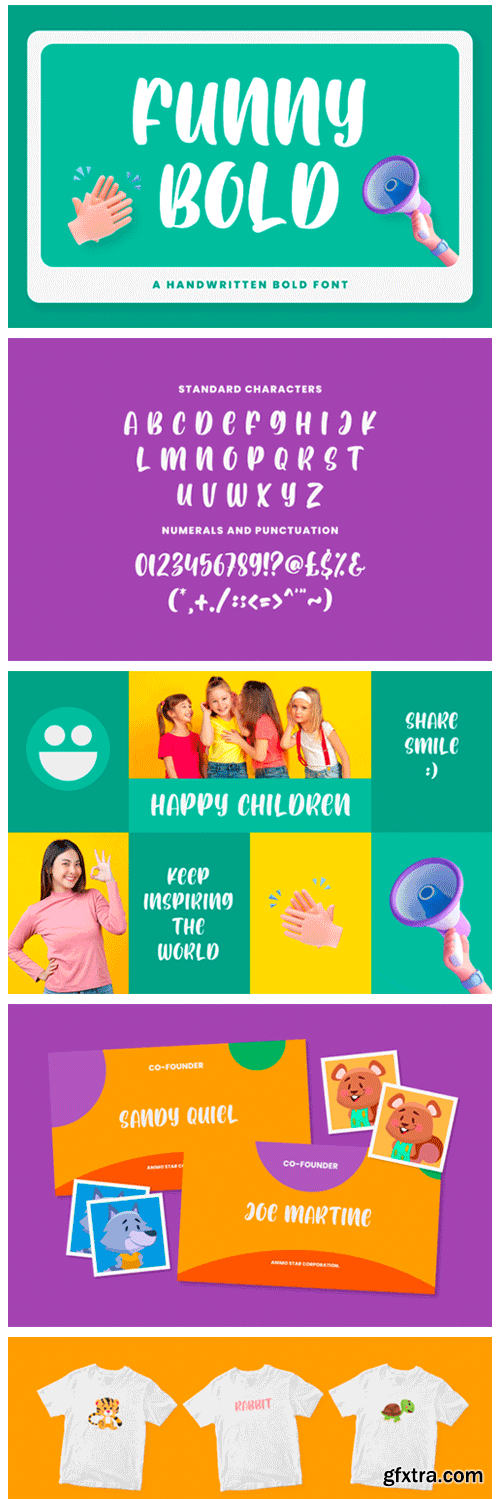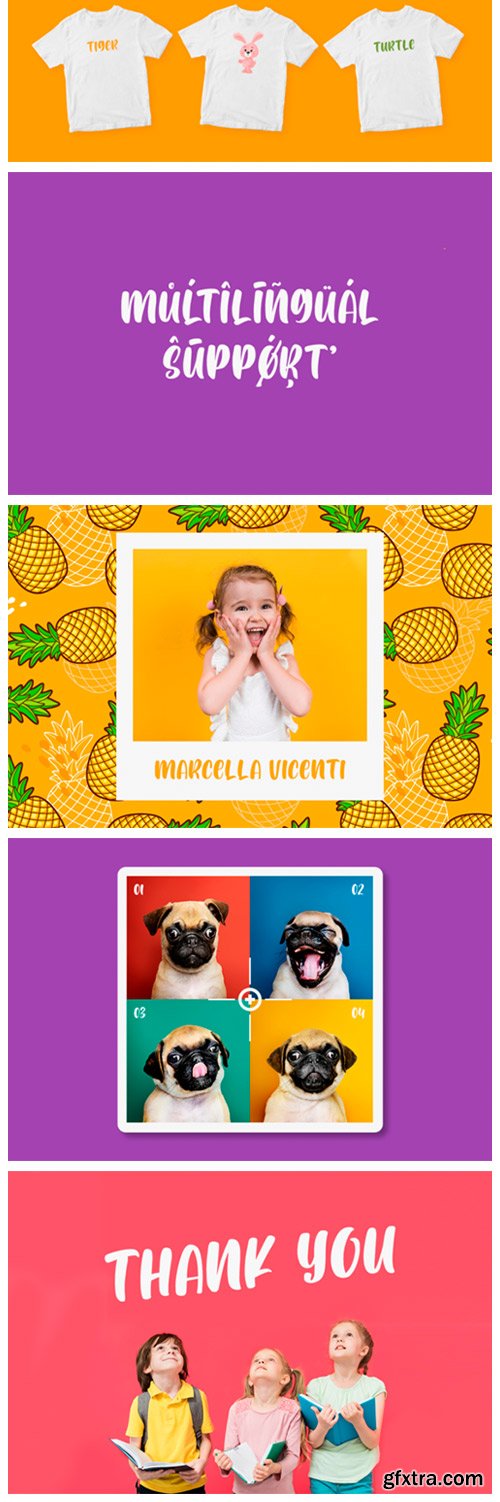
Funny Bold Font
Funny Bold is a fun, relaxed and friendly display font. Whether you’re using it for crafting, digital designing, presentations or greeting cards making, it’s perfect!